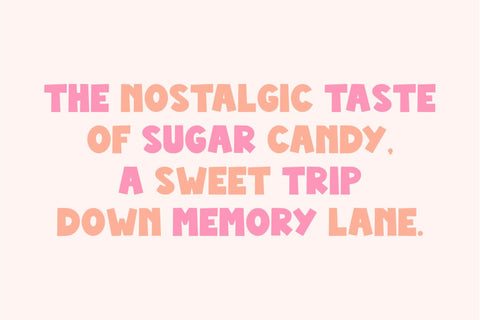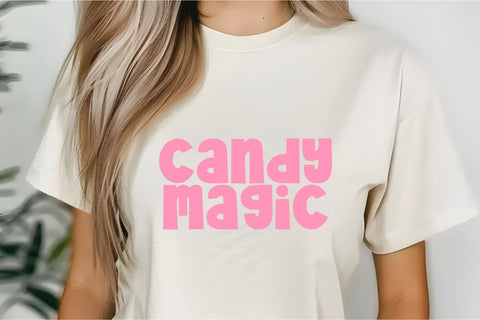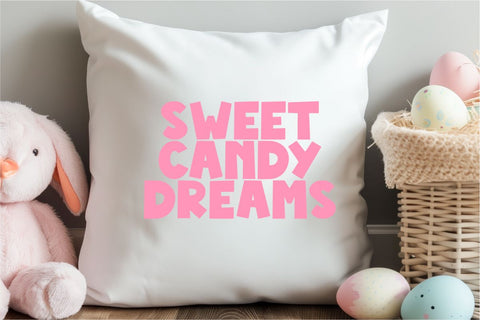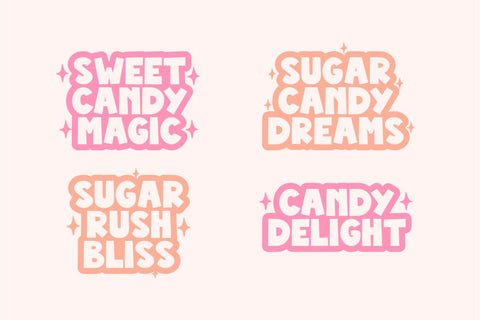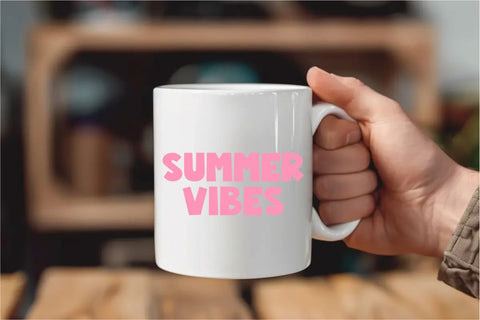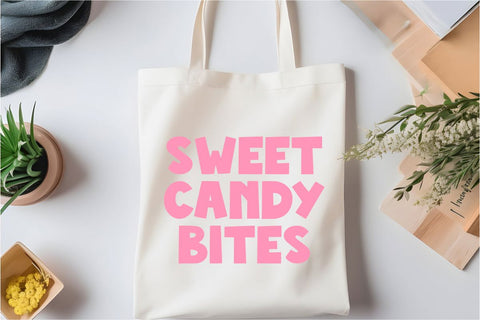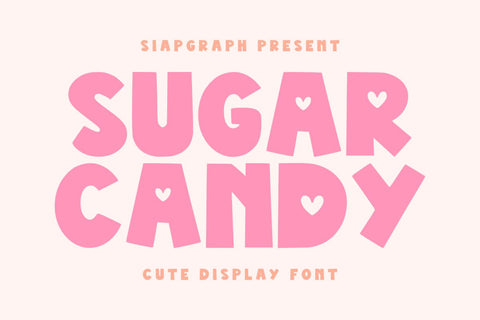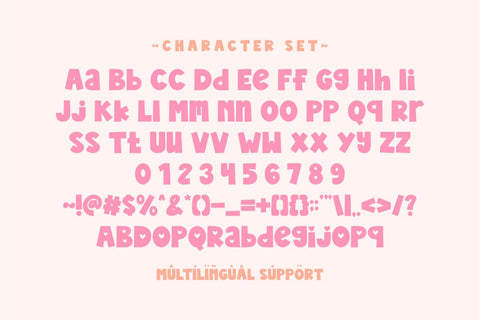
Sugar Candy - Bold Quirky Font
Sugar Candy is a delightful and charming display font that exudes sweetness and playfulness. Its rounded, bubbly letterforms and the adorable heart details integrated into some characters create a truly unique and eye-catching aesthetic. This font is perfect for adding a touch of whimsy and joy to a wide range of creative projects. Imagine using Sugar Candy to design cheerful stickers, vibrant planner elements, eye-catching t-shirt designs, sweet labels, lovely invitations, personalized tumblers, and a variety of other delightful crafts. Its friendly and approachable style makes it particularly well-suited for products targeting end-users who enjoy crafting with Cricut, sublimation, and other DIY methods. Sugar Candy’s distinct personality will make your designs stand out and bring a smile to anyone who sees them.